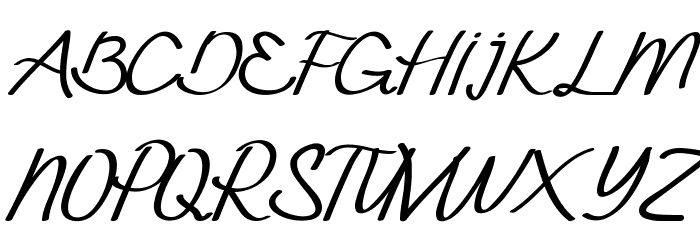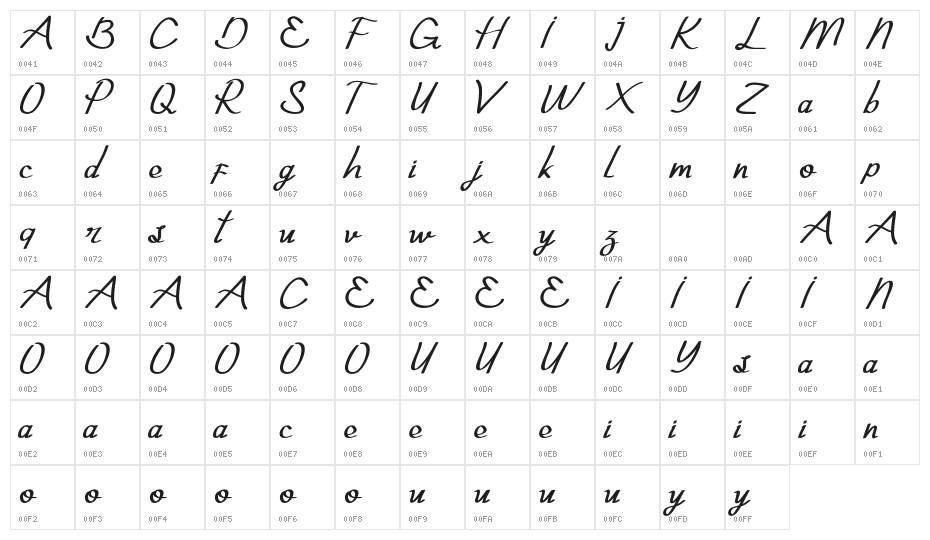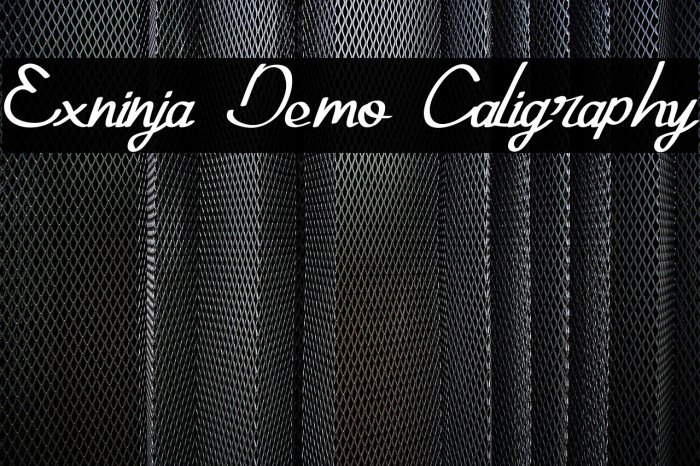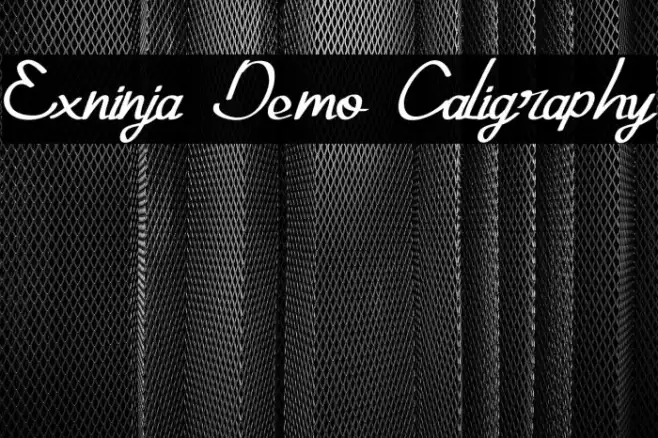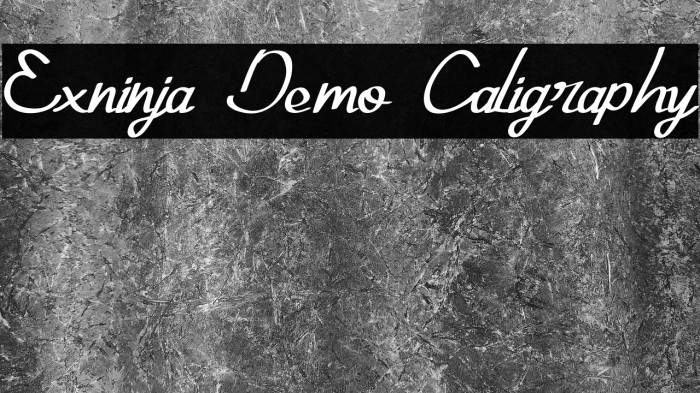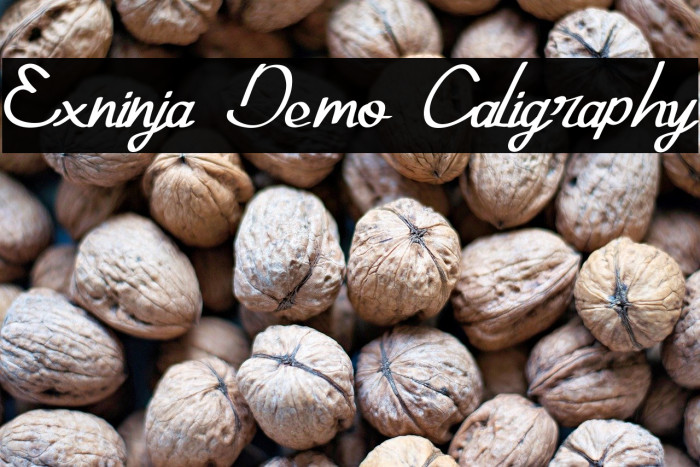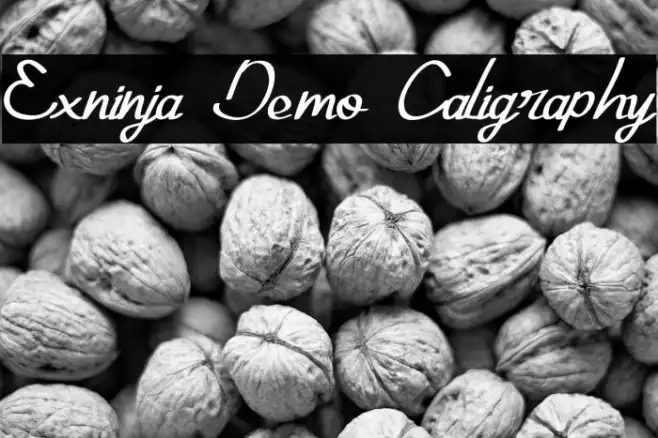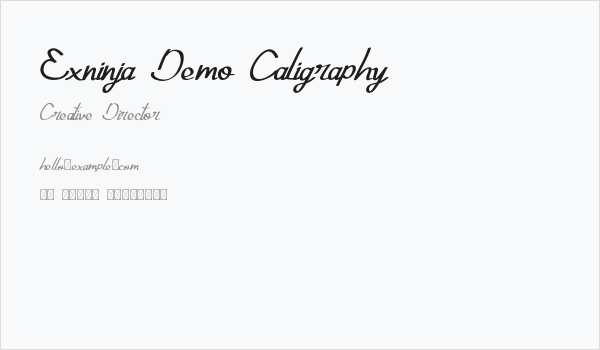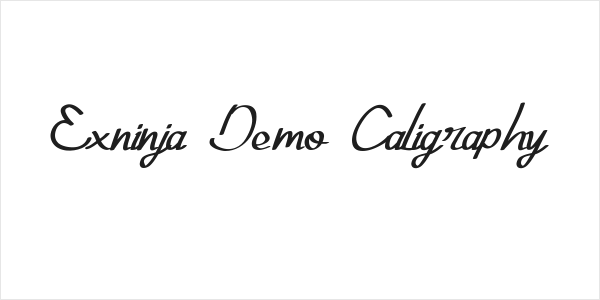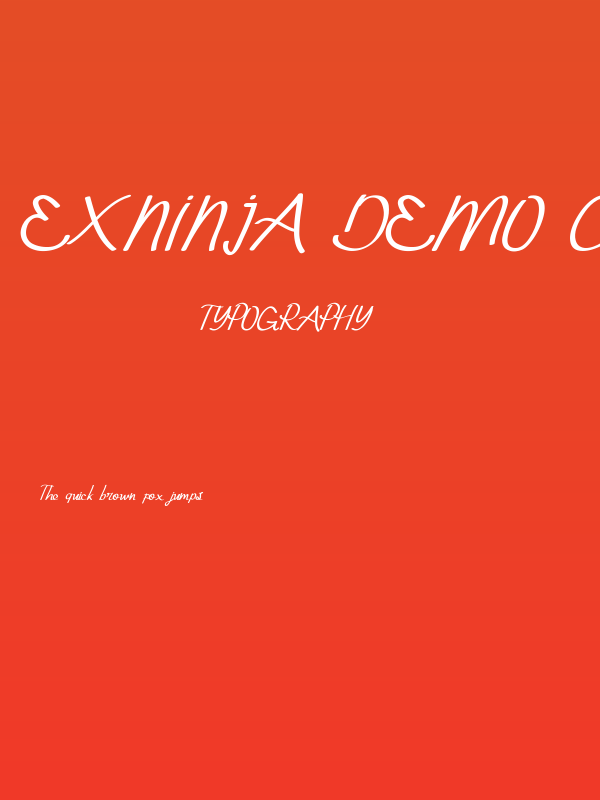
Exninja Demo Caligraphy Font
Exninja Demo Caligraphy Description
This elegant script font features a flowing, cursive style that mimics traditional calligraphy. The characters are connected with smooth, sweeping strokes, giving it a graceful and sophisticated appearance. The uppercase letters are slightly more ornate, with extended flourishes, while the lowercase letters maintain a consistent flow. The font exhibits a medium contrast between thick and thin strokes, enhancing its readability while preserving its decorative nature. The overall design is both classic and modern, making it versatile for various design applications.